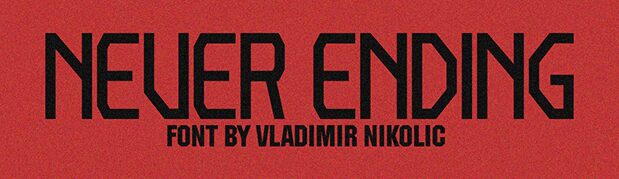
Never Ending font by Vladimir Nikolic is a free techno display font with geometric symmetry and futuristic motifs. Neither high nor all that thick, the font holds balance between its tonality, structure, and character design. The font works great in big text sizes or subheadlines on specific projects.
Use this typeface for interface design, video games, movie titles, posters, banners, advertising projects. Website designs and printed artwork will benefit from employing it as well!